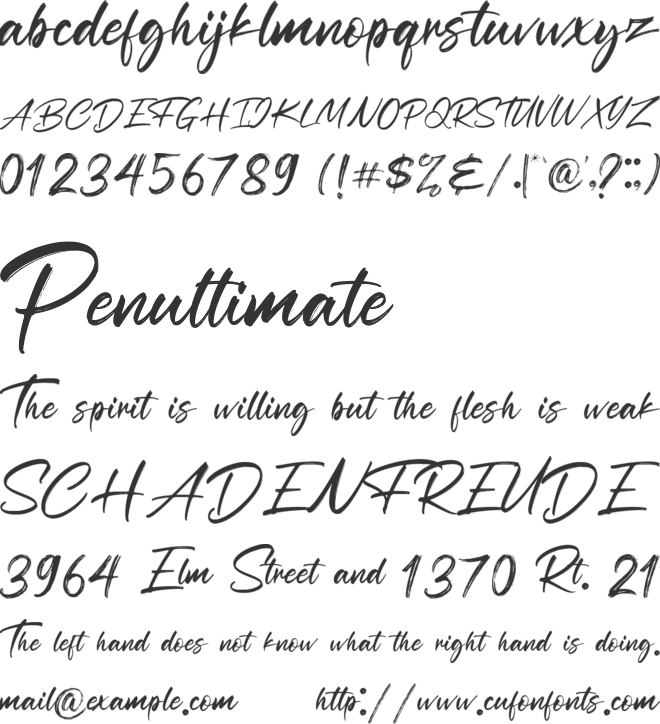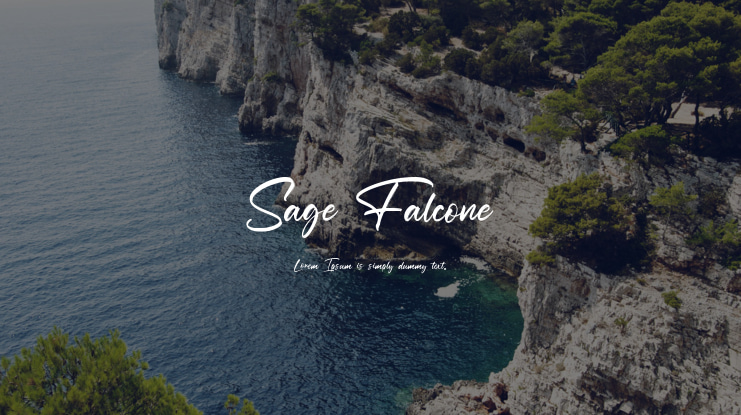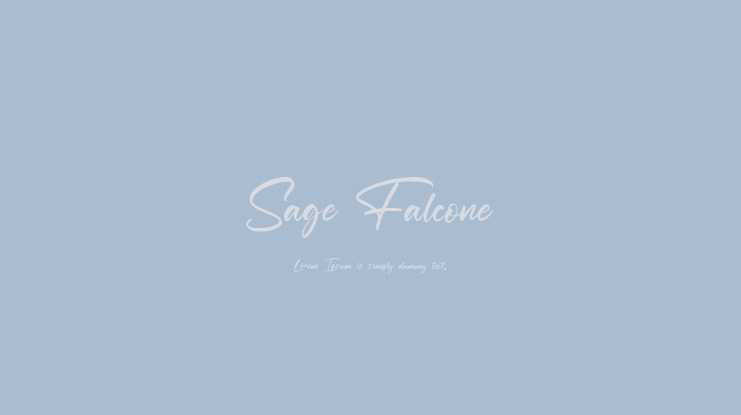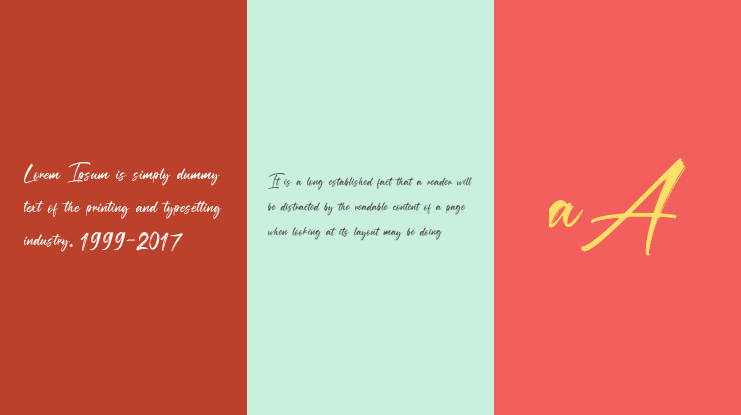
Sage Falcone Font
**Introducing the Sage Falcone Brush Font**
The Sage Falcone Brush Font is crafted with a natural brush and clean style. You can purchase a commercial license [here](https://basnistudio.com/product/sage-falcone-brush-font/).